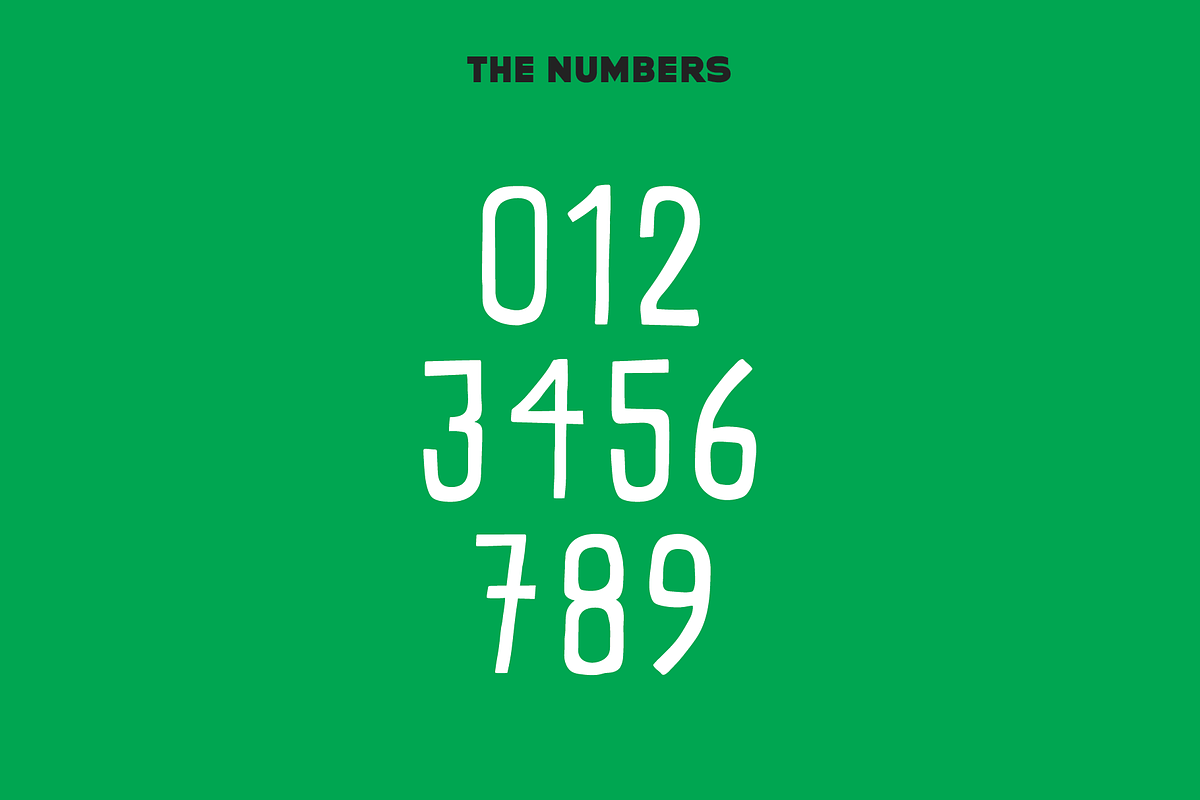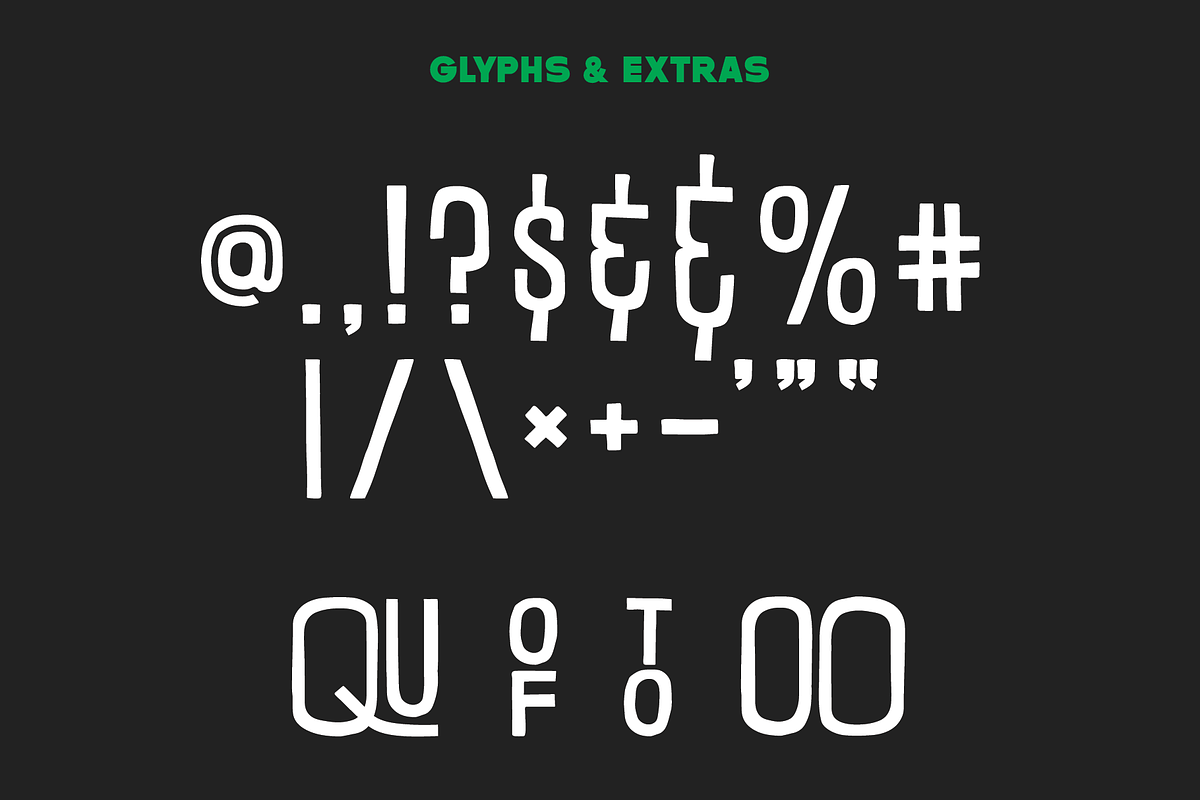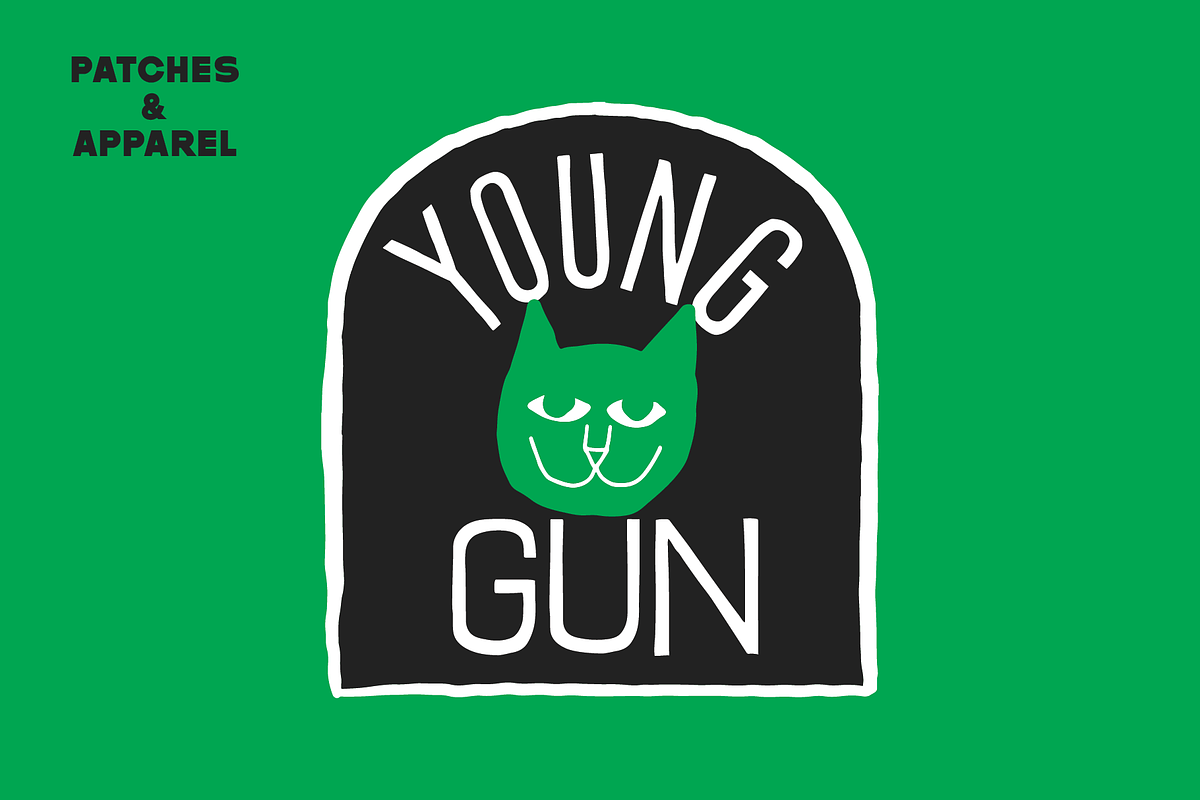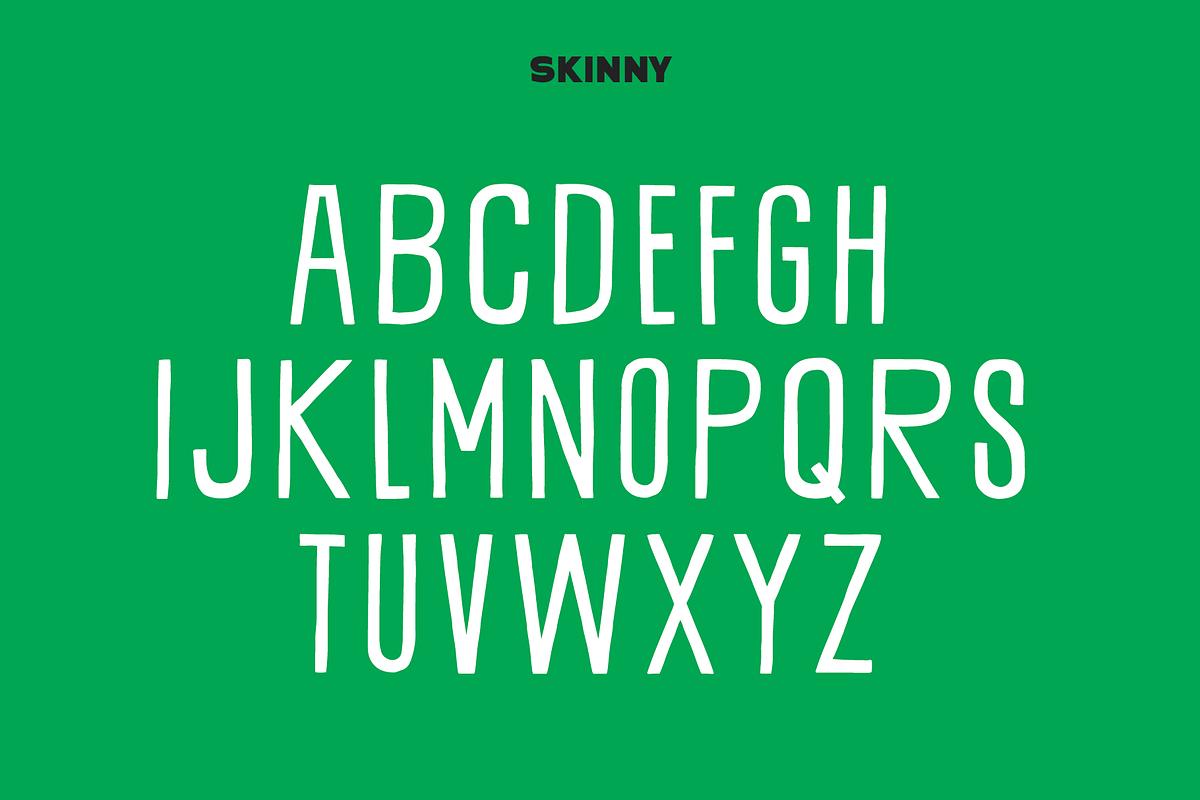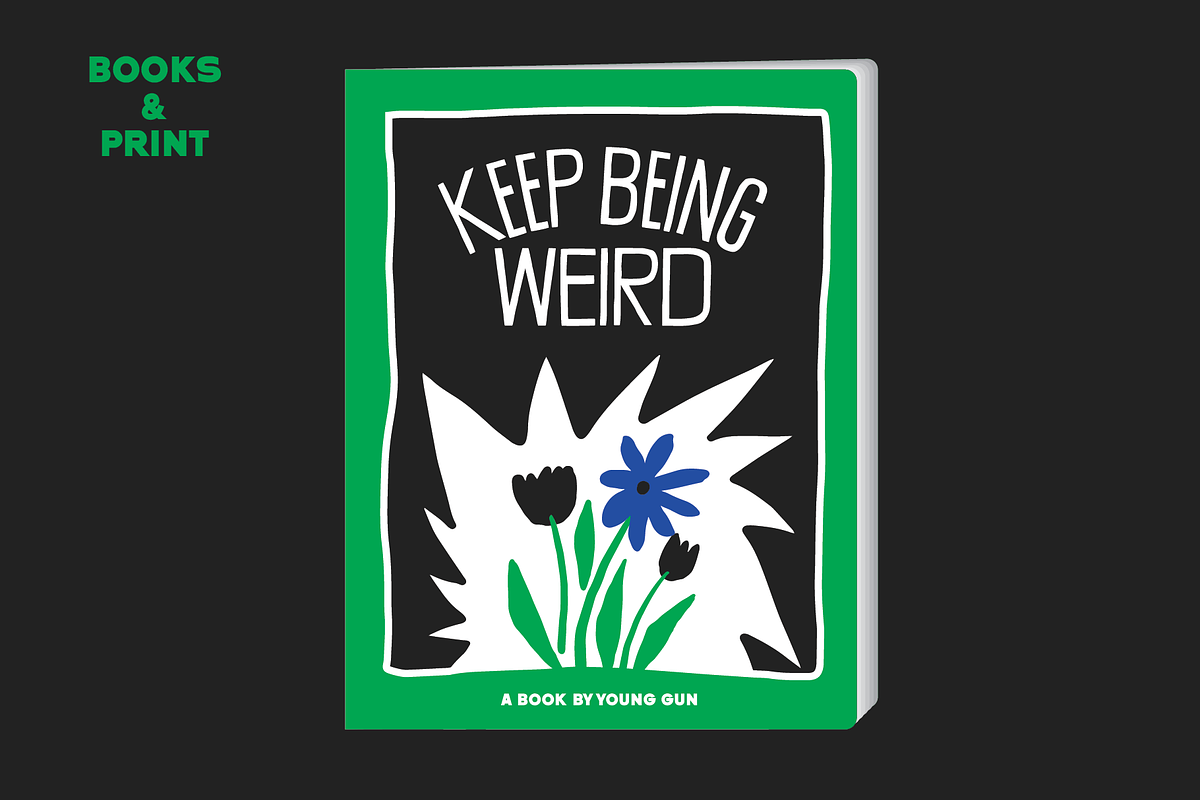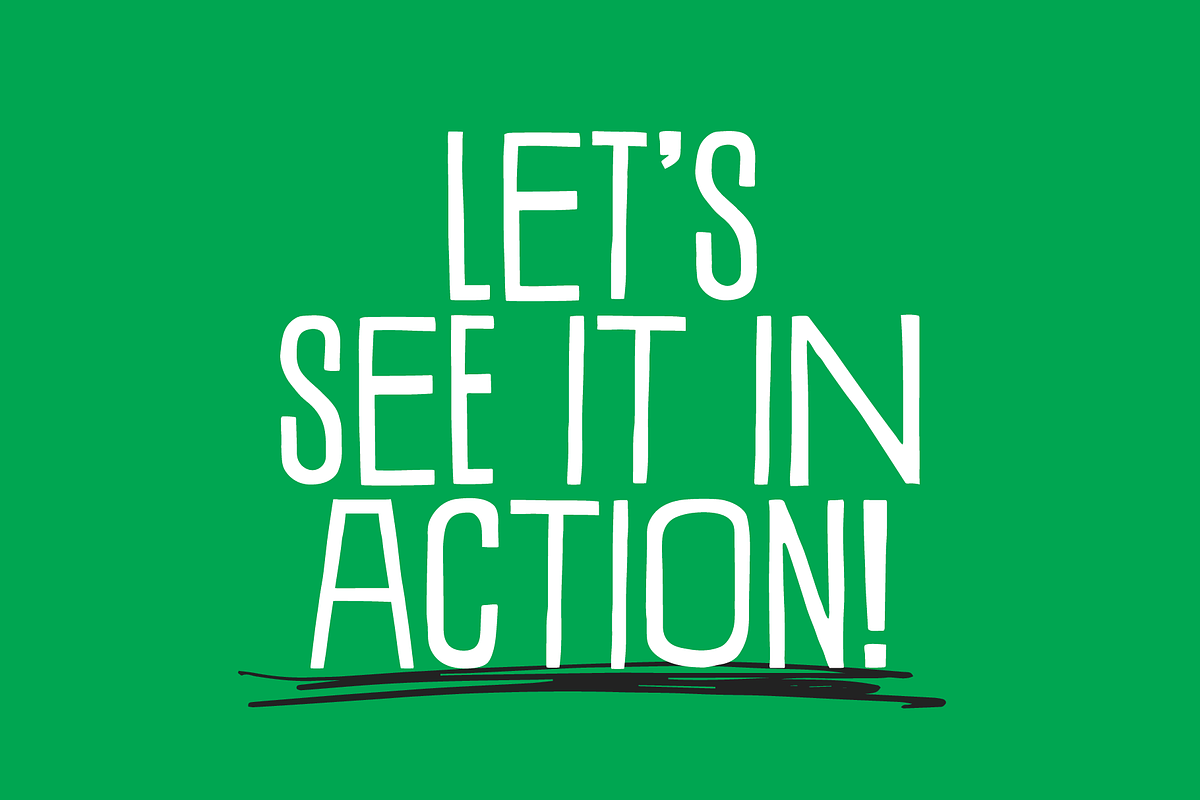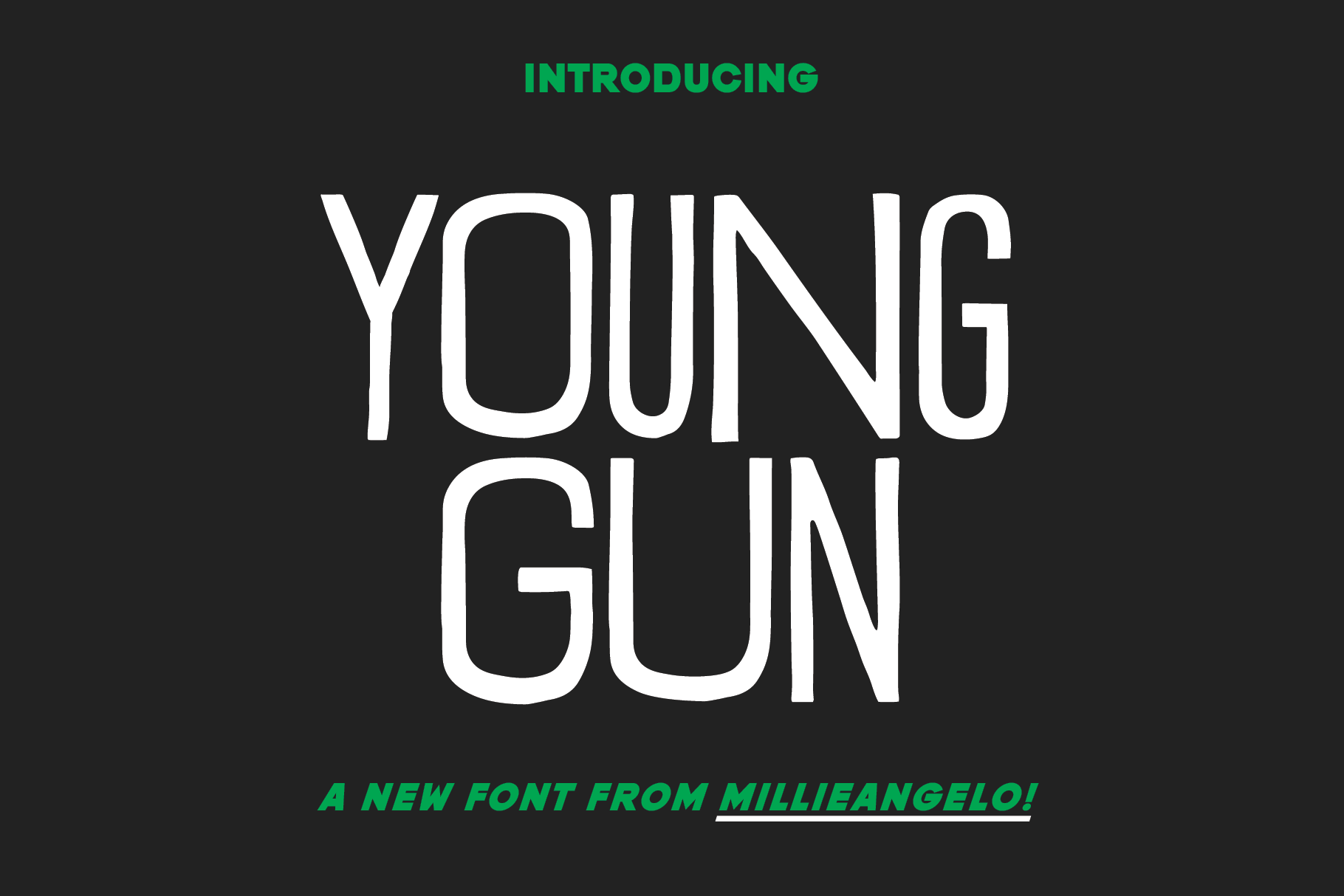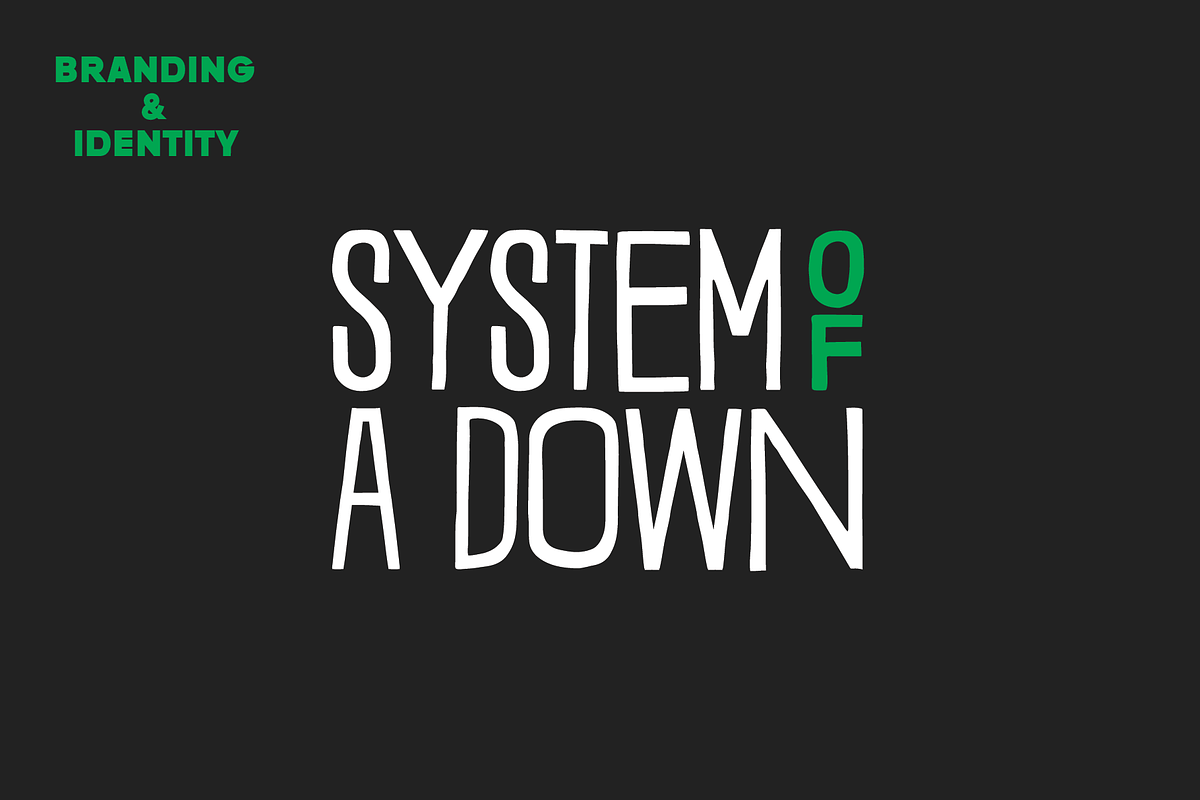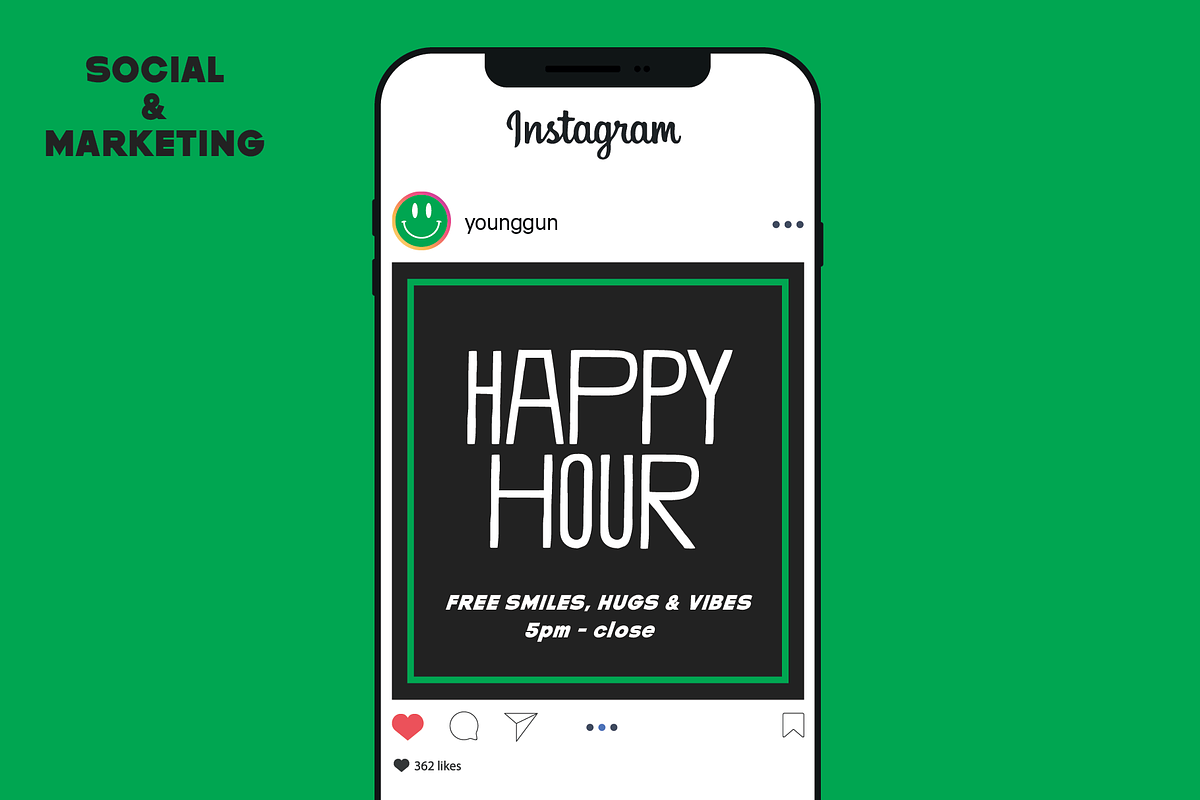
YOUNG GUN — A Wonky Headline Font
Young Gun is the ultimate font for 2022 and beyond. In a world that adores the free nature of hand crafted type, Young Gun is the instant winner. Crafted by hand with today's consumer in mind, Young Gun is super versatile. From social media, to print, to branding and website headlines, this font can do it all!!